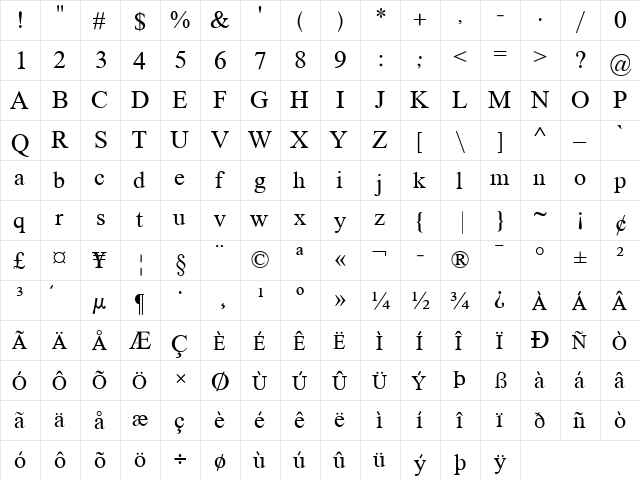
BosporosU Regular
| Foundry | Donald Mastronarde, after Marc Cogan |
| Designer | Donald Mastronarde, after Marc Cogan |
Design Context for BosporosU Typeface
BosporosU takes a measured approach to typography — its balanced proportions and neutral character make it a reliable workhorse for both digital and print work.